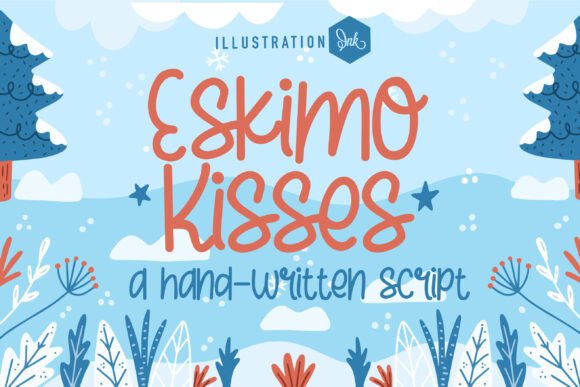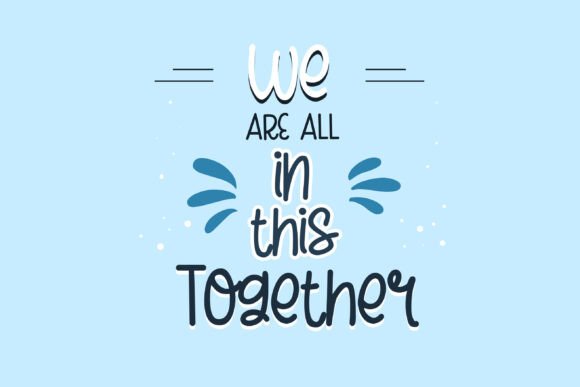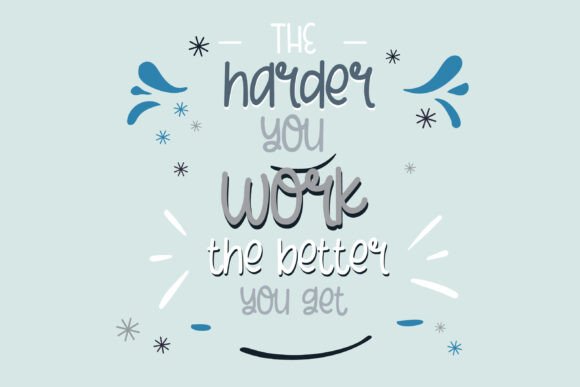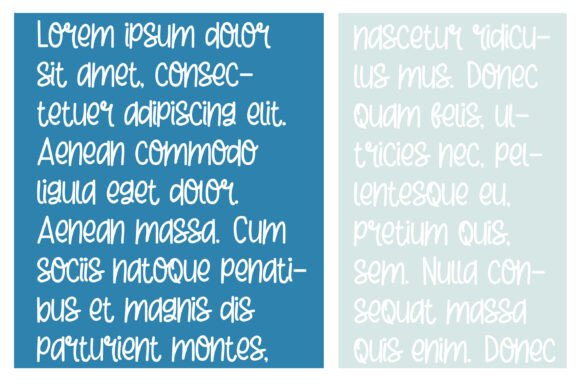
Eskimo Kiss Font
About the Eskimo Kiss Font
Elevate your designs with Eskimo Kiss Font, a font that combines sophistication with readability. This hand-crafted font is a youthful and fun font that is a mix of print and script.
Eskimo Kiss excels in projects requiring a playful yet sophisticated touch, such as logos for children’s brands, wedding invitations, or short-form editorial design. Its hand-crafted nature lends itself well to headlines, short quotes, and packaging design where a sense of personality is desired. However, avoid using it for large blocks of body text or UI elements; its informal style would hinder readability.
Pairing Eskimo Kiss with a clean sans-serif like Open Sans for body text creates a strong contrast, balancing the hand-drawn character with modern readability. Alternatively, a classic serif like Garamond could provide a sophisticated counterpoint, adding a touch of elegance. For a more playful feel, consider pairing it with a geometric sans-serif such as Futura.
The font’s overall personality is best described as cheerful and approachable, yet refined. It conveys a sense of youthful energy without sacrificing legibility in appropriate applications.
Eskimo Kiss Font Usage Examples
Eskimo Kiss Font Example